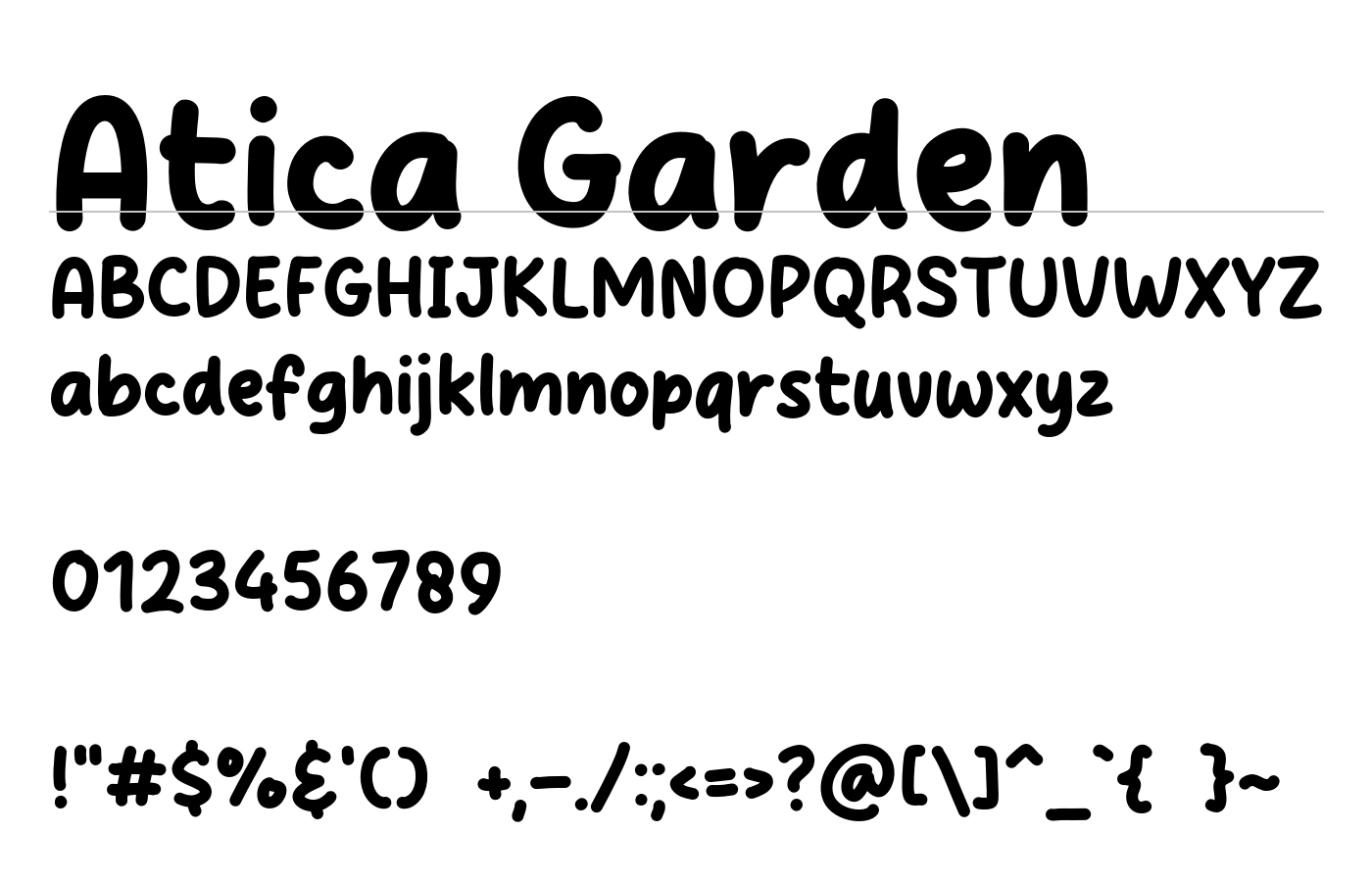
Atica Garden is a playful, rounded sans serif font with a friendly, hand-drawn feel that combines casual charm with clear readability. Its slightly irregular shapes and moderate x-height create an inviting and approachable tone, making it ideal for children’s books, informal branding, and creative projects that want to convey warmth and personality. This font works well in headlines, logos, and packaging where a cheerful, down-to-earth style is needed.
Atica Garden Font
About Atica Garden Font